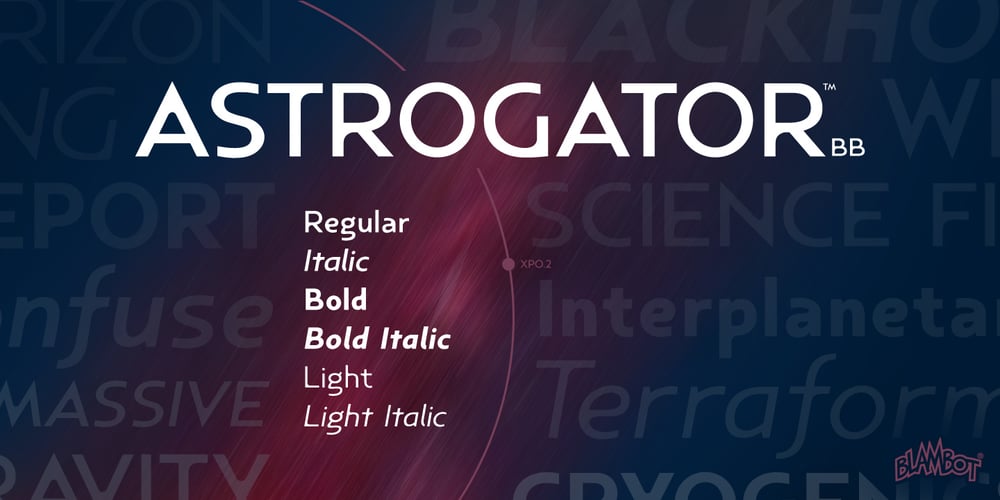
Astrogator BB Font Family was designed by Nate Piekos and published by Blambot. Astrogator BB contains 6 styles and family package options. Astrogator is a sans font family that’s been taken on a fantastical journey to other worlds. Clean and legible, this title/body copy font has a subtle science fiction flair. Includes Regular, Italic, Bold, Bold Italic, Light, and Light Italic. Notes: A font family on MyFonts.com can contain an unlimited number of styles.